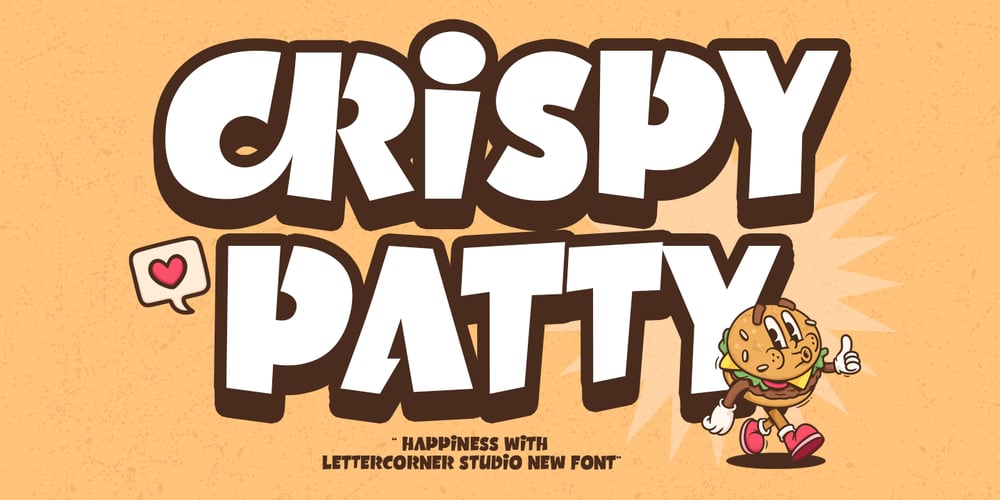
Crispy Patty
Crispy Patty font
Crispy Patty Font Family was designed by Muhammad Afif Ersya and published by Mevstory Studio. Crispy Patty contains 1 styles and family package options. a dynamic collection of type inspired by the hand-lettered work of comic book artists. Crispy Patty features a bold display face with an outlined dimensional complement – perfect for titles or words needing more dramatic emphasis. You also get a full character set of four narrative dialogue typefaces complete with multilingual support. Alternating between upper and lower case with Crispy Snack stretches the contextual variety so your letter pairs won’t look identical.The Crispy Patty is the perfect all-in-one lettering solution for those comic-style or cartoon projects.